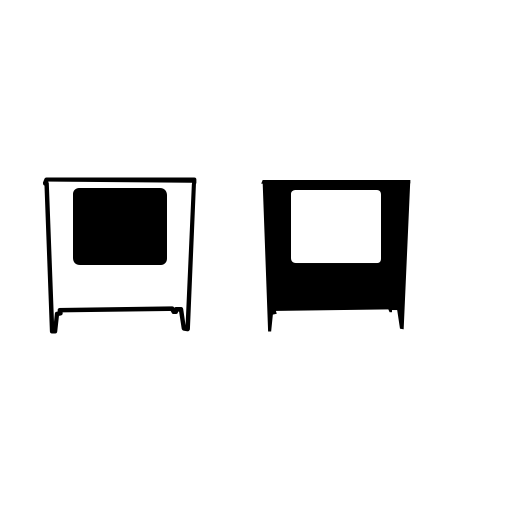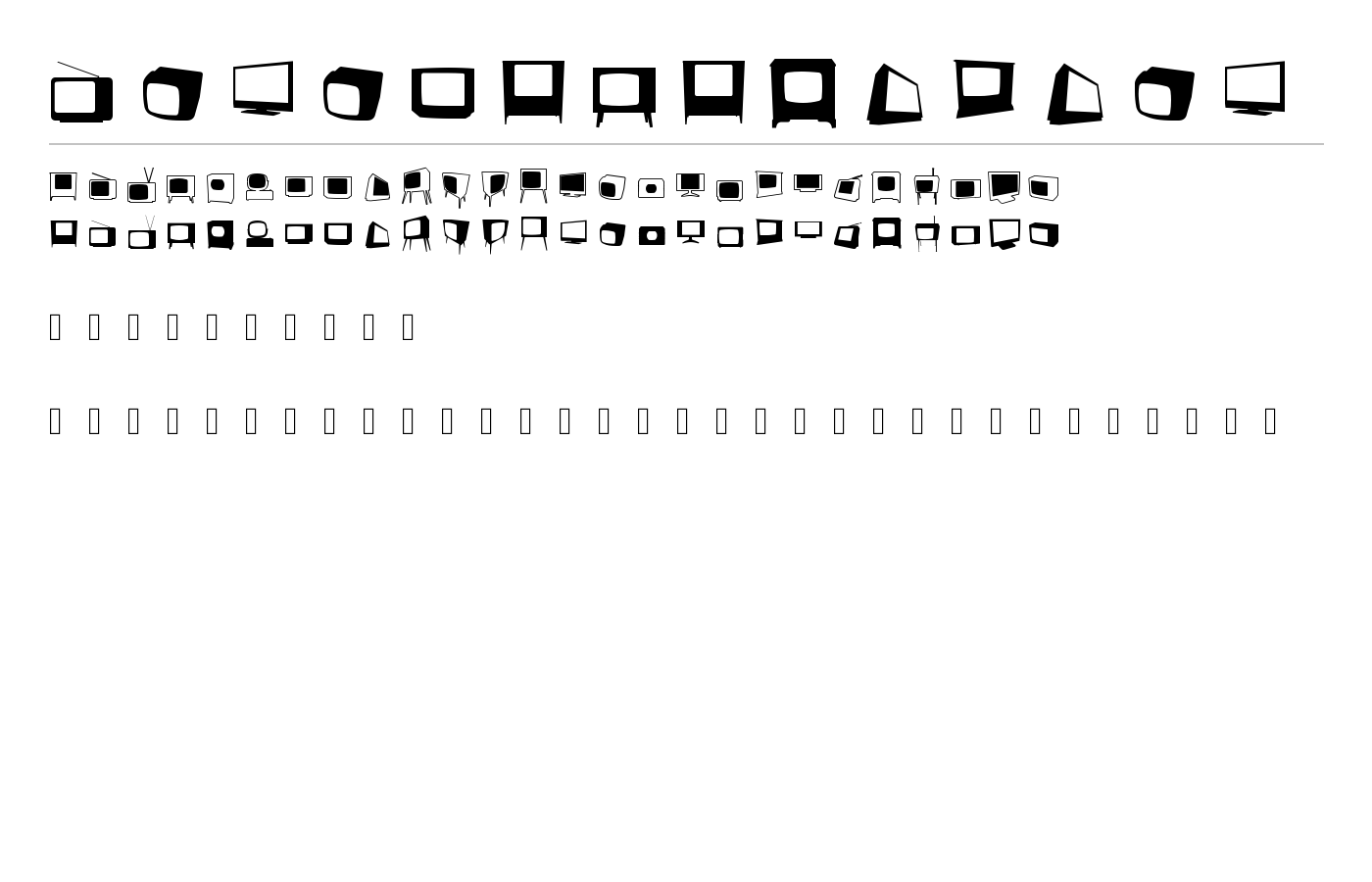
Bonohadavision is a highly stylized, playful display font featuring quirky, abstract shapes that resemble vintage television and monitor icons. Its bold, solid black silhouettes with irregular edges and varied forms convey a retro, artistic vibe, making it ideal for creative projects, logos, and eye-catching headlines that seek a unique, nostalgic touch. This font stands out best where a fun and unconventional look is desired, capturing attention with its distinctive character.
bonohadavision Font
About bonohadavision Font